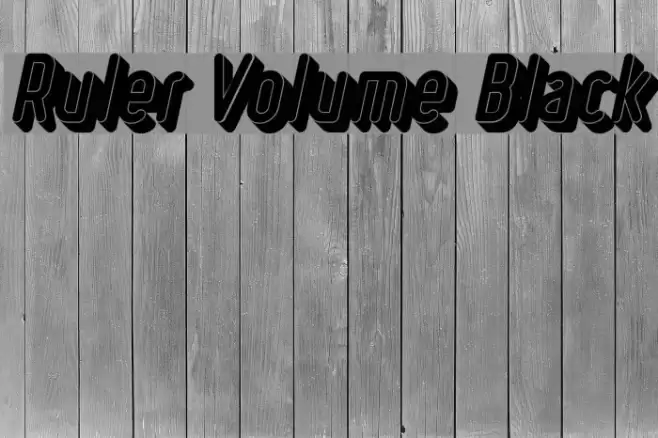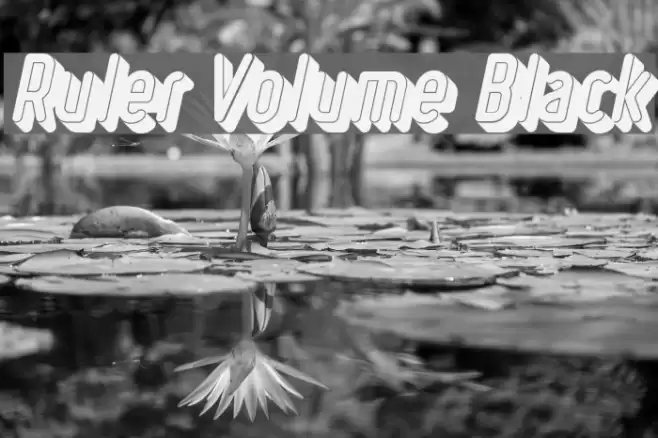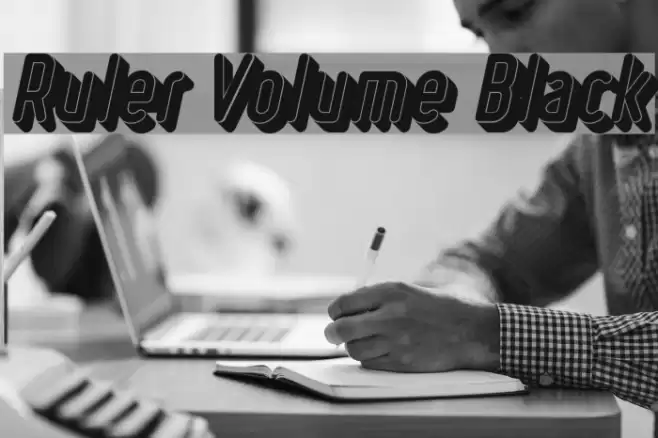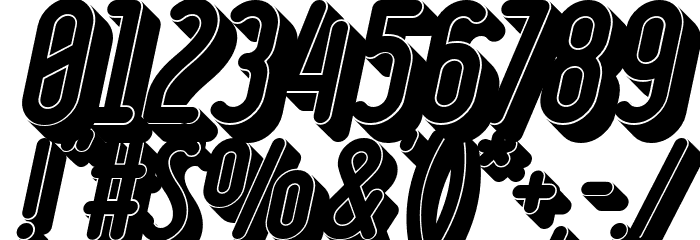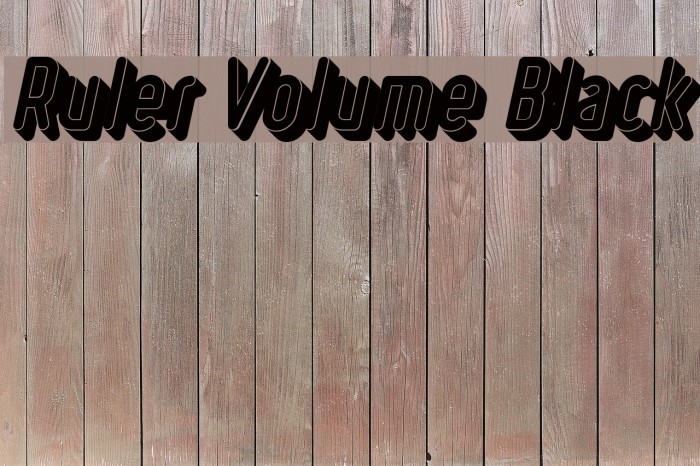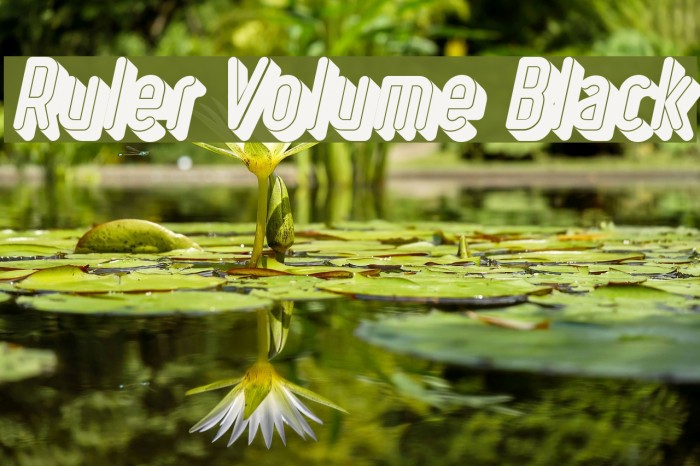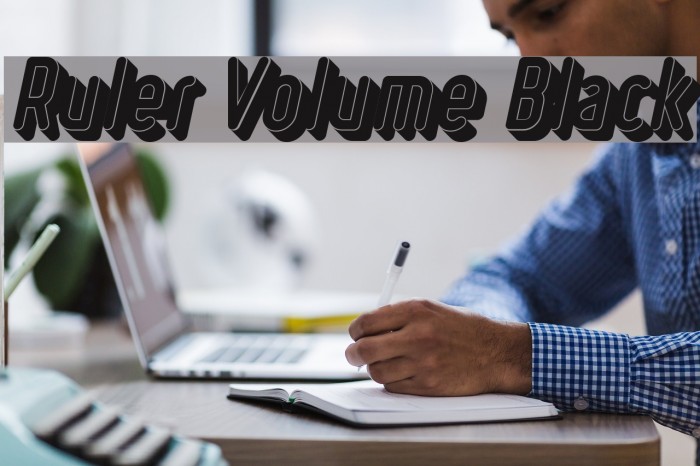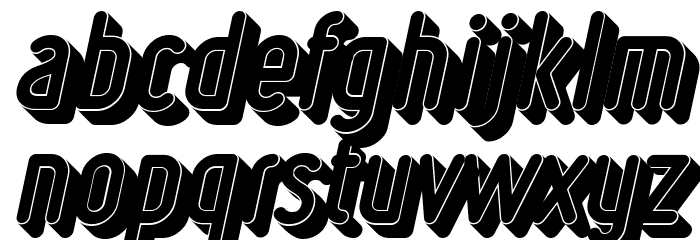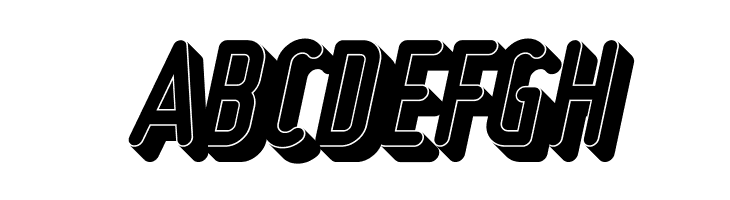
Ruler Volume Black Font
Ruler Volume Black Description
This font features a bold, three-dimensional style with a strong shadow effect that gives it a striking and impactful appearance. The letters are uppercase and lowercase, with numerals and special characters, all designed with a consistent thickness and a slightly italicized slant. The bold outlines and shadows create a sense of depth, making it ideal for eye-catching designs. The characters are closely spaced, enhancing the compact and dynamic look. This font is perfect for projects that require a modern and energetic feel, such as posters, headlines, and branding materials.
A bold, three-dimensional font with strong shadow effects and a modern, dynamic style from Uncategorized fonts.
- Proposed Projects: Ideal for posters, headlines, branding materials, and any design requiring a bold, modern impact.
- Character Spacing: Tight